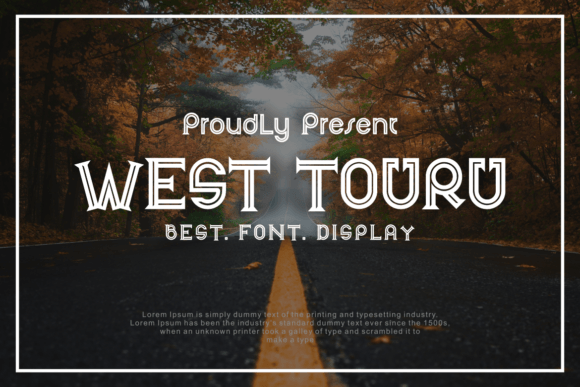
Prepare to be captivated by the allure of West Touru, the font that exudes elegance and authenticity. This contemporary display font is a masterpiece crafted with meticulous attention to detail, promising to elevate your branding endeavors to unprecedented heights.
Immerse yourself in a realm of creative possibilities with West Touru, a font that seamlessly adapts to your every need. Its versatility knows no bounds, lending a touch of sophistication to logos, t-shirt designs, and the vibrant world of esports.
But it's in the realm of gratitude that West Touru truly shines. Its graceful strokes and impeccable flow make it the perfect choice for crafting heartfelt thank-you letters that leave a lasting impression. Each letter dances across the page, conveying your appreciation with a touch of timeless charm and sincerity.
So, embark on a captivating journey with West Touru, the font that empowers you to express your gratitude with unparalleled style and leave an indelible mark on the hearts of those you cherish.